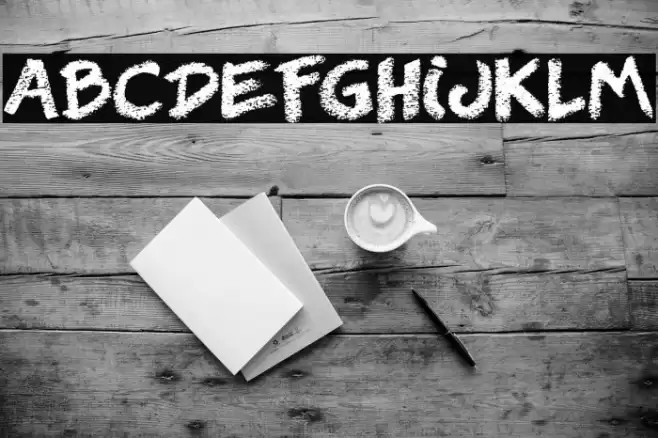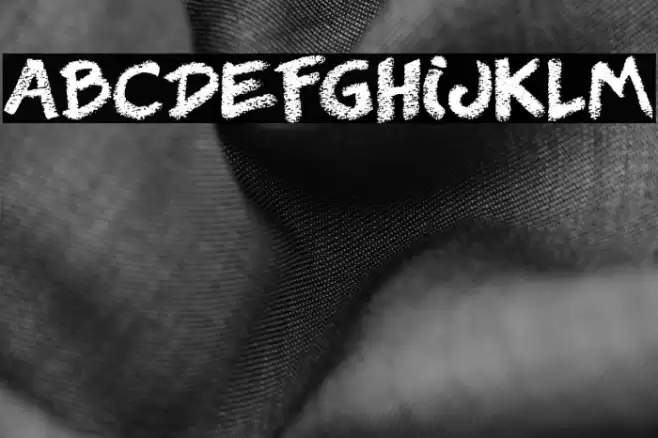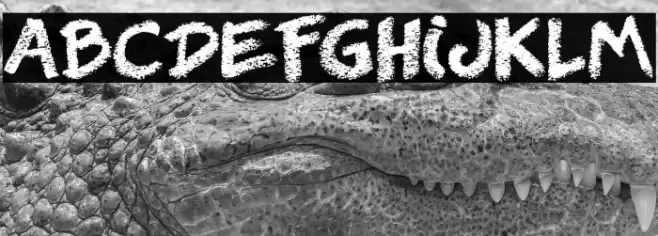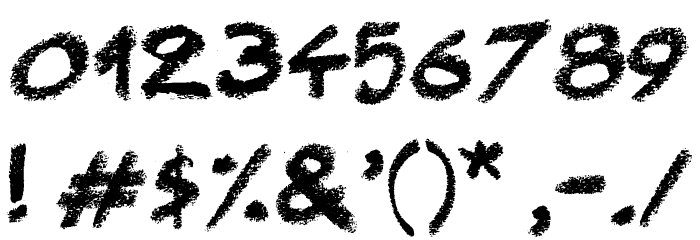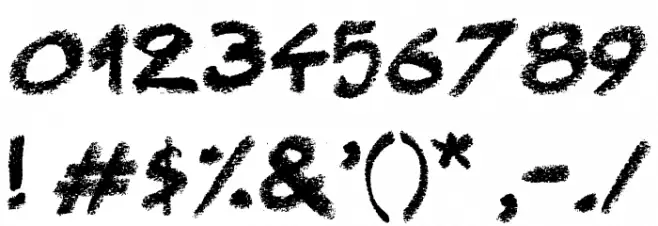
Right Chalk Font
Right Chalk Description
This font features a playful and textured design, reminiscent of chalk writing on a blackboard. The characters are bold and slightly irregular, giving them a hand-drawn appearance. The texture adds a dynamic and lively feel, making it suitable for informal and creative projects. The uppercase and lowercase letters maintain a consistent style, with rounded edges and a slightly uneven baseline, enhancing the casual aesthetic. Numbers and special characters follow the same design principles, ensuring a cohesive look across all glyphs.
A playful, textured font with a chalk-like, hand-drawn appearance from Uncategorized fonts.
- Font: Right Chalk
- Overall Style: Playful, Creative
Right Chalk UPPERCASE
Right Chalk LOWERCASE
Right Chalk OTHER CHARS